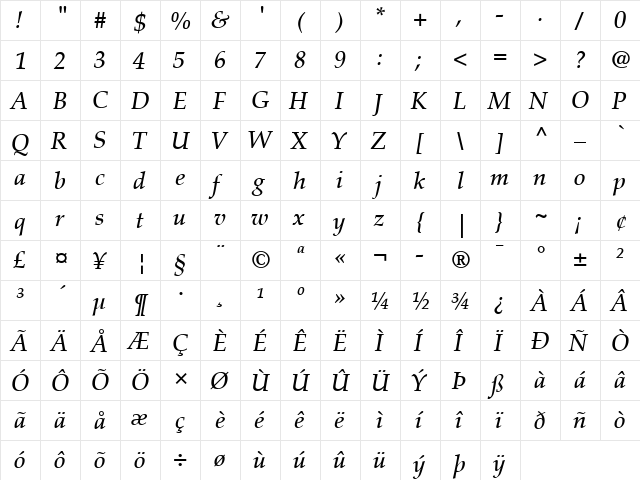
Palatino LT Light Bold Italic
Design Context for Palatino LT Light Typeface
Palatino LT Light takes a measured approach to typography — its balanced proportions and neutral character make it a reliable workhorse for both digital and print work. Its italic angle brings a sense of urgency and motion to the letterforms. The heavy weight commands attention and anchors typographic hierarchies.